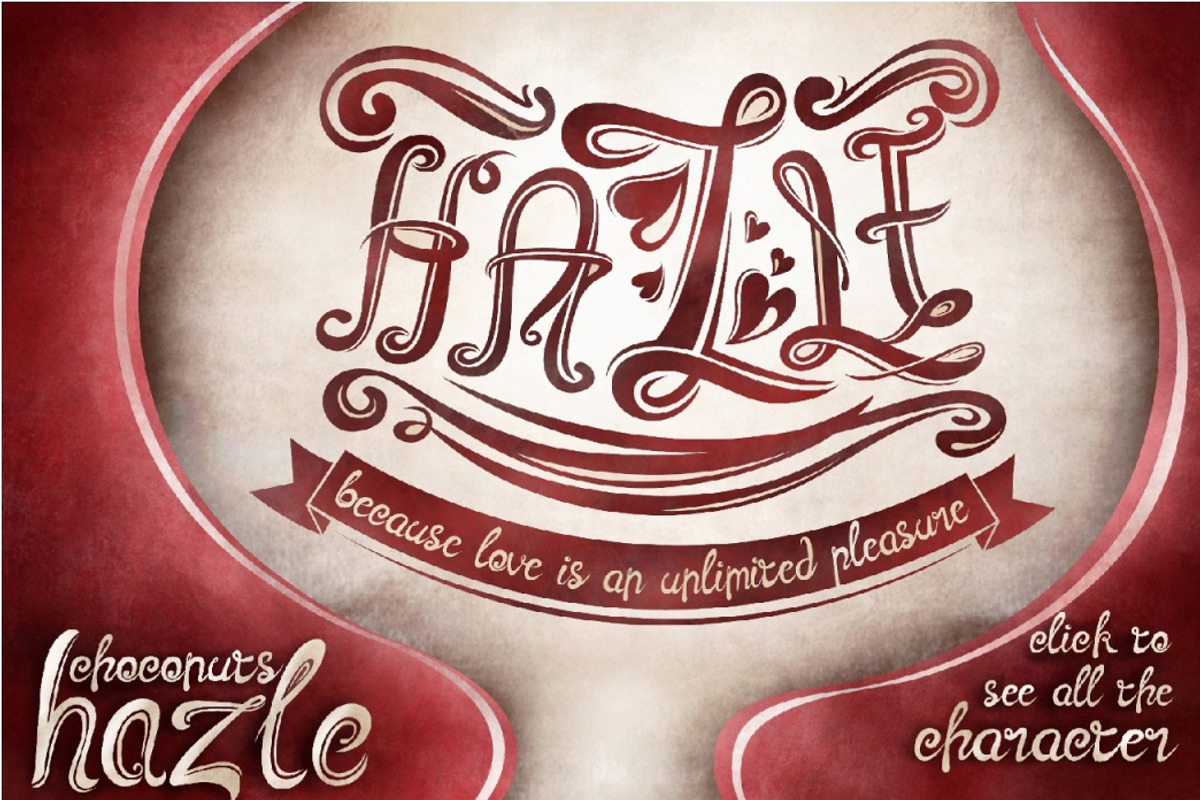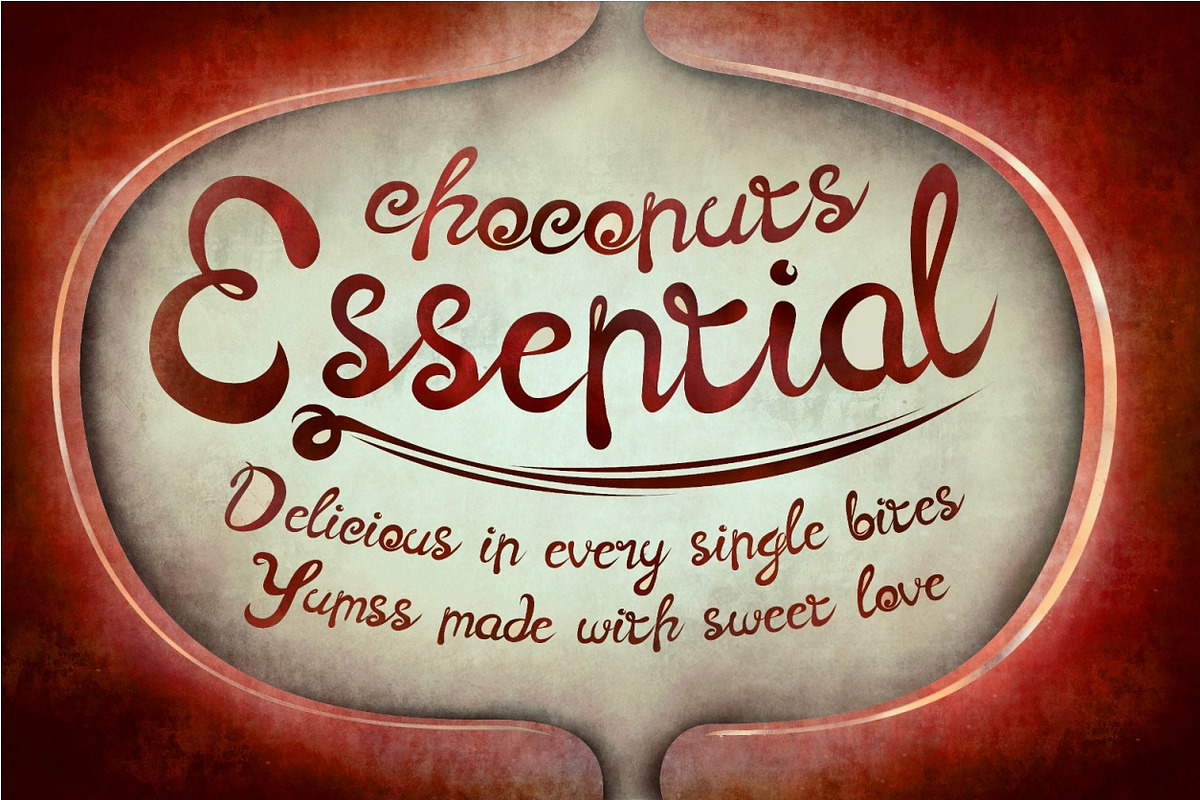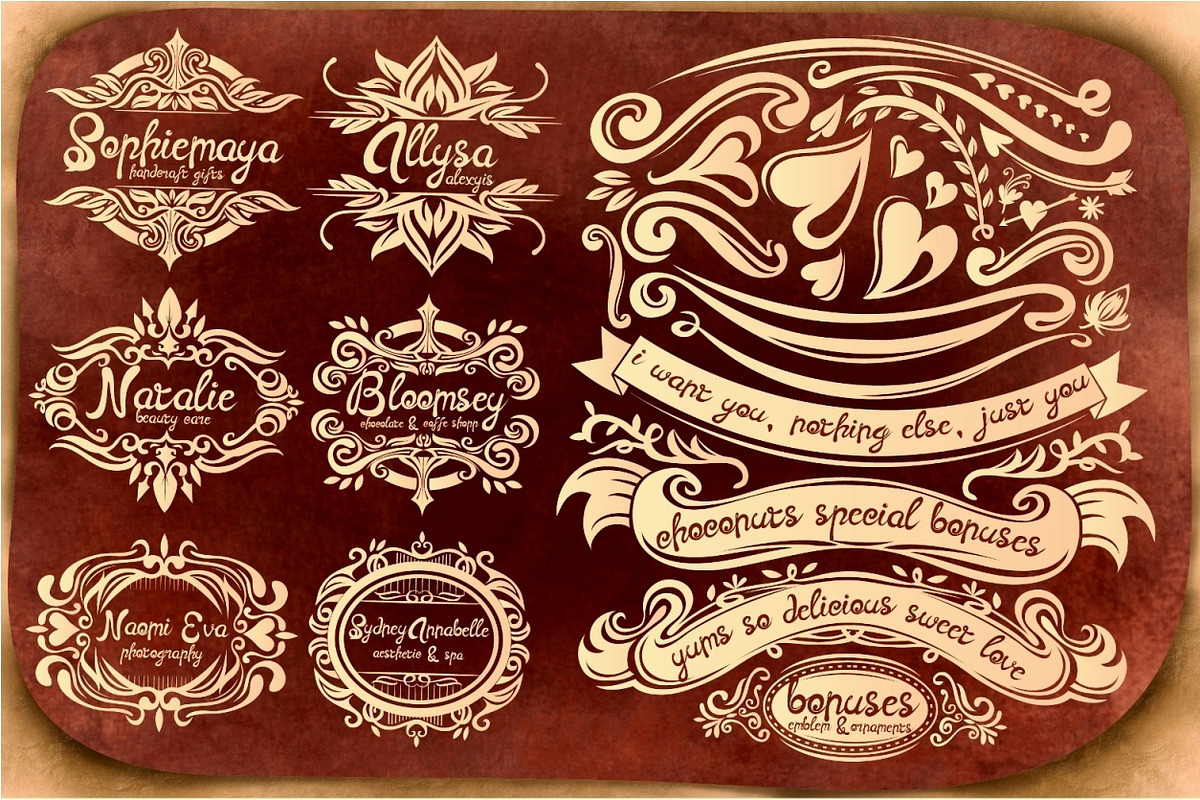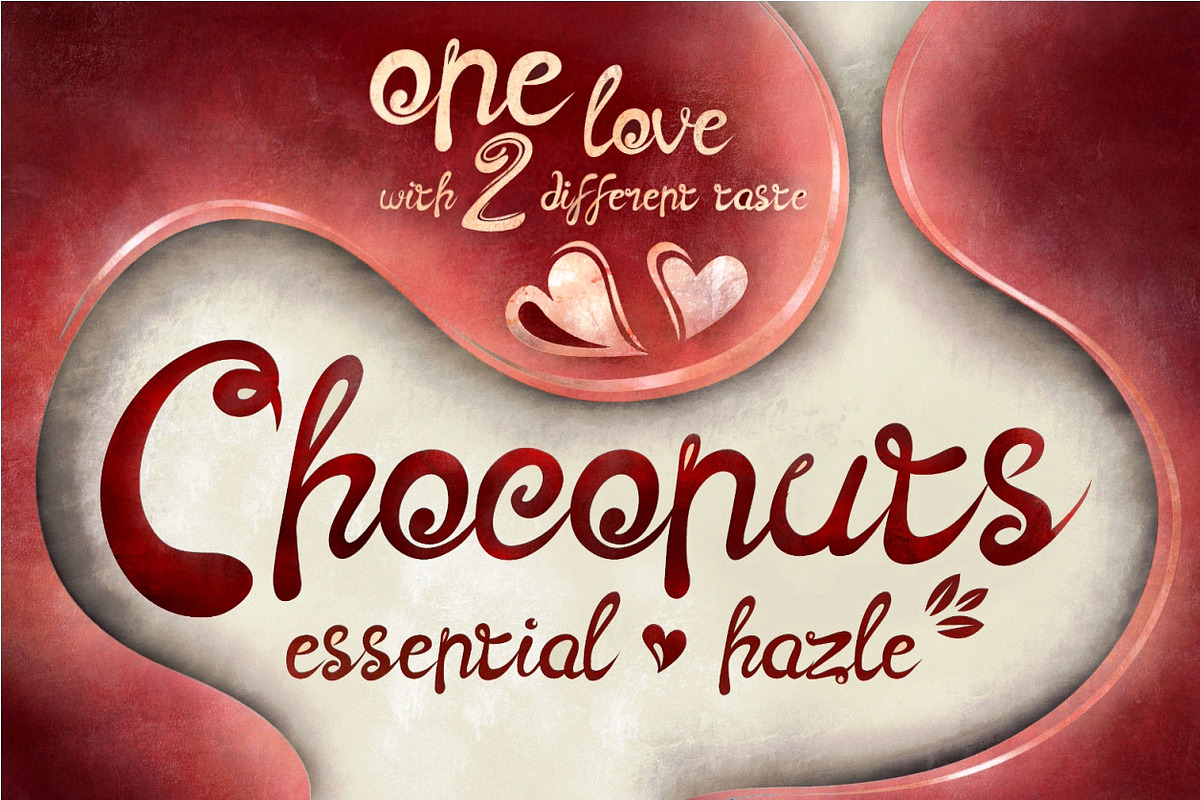
Choconuts Typeface
Choconuts Typeface by xivi is a font selected for branding, posters, packaging, typography.
Why Choconuts Typeface is worth a look
Choconuts Typeface by xivi fits naturally into Branding, posters, packaging, typography.